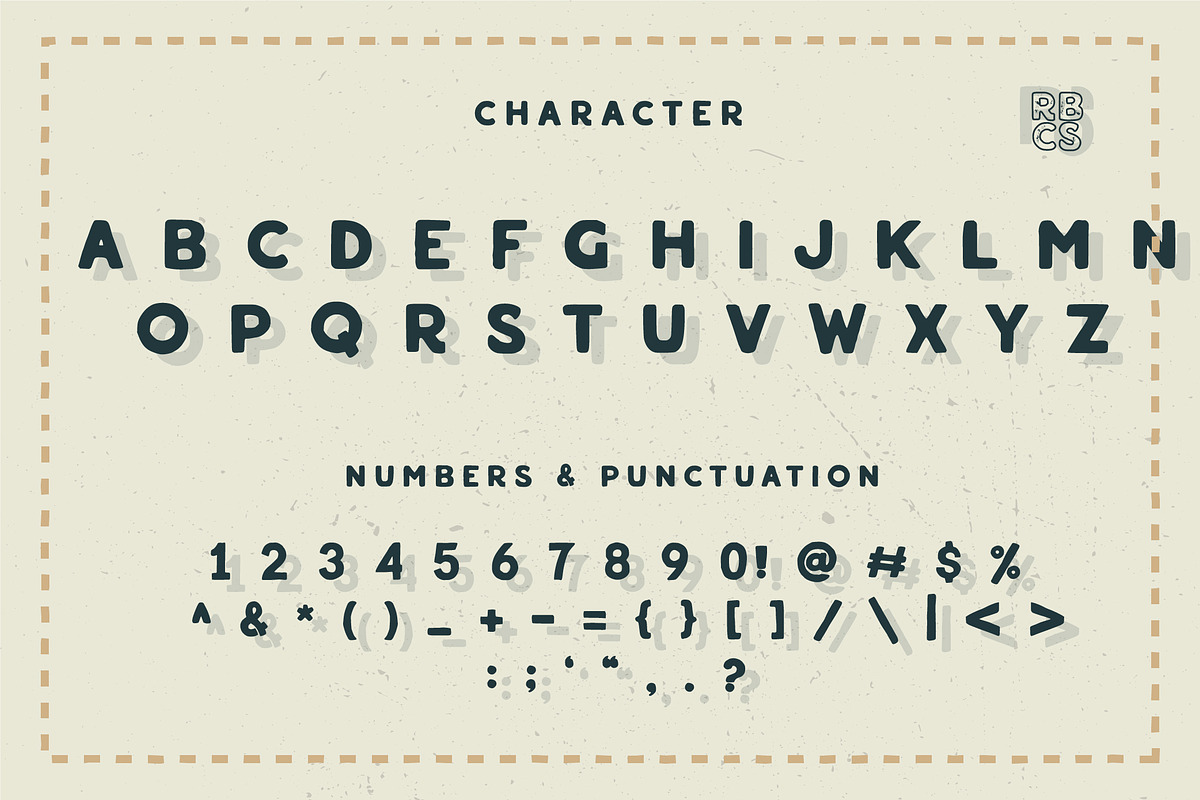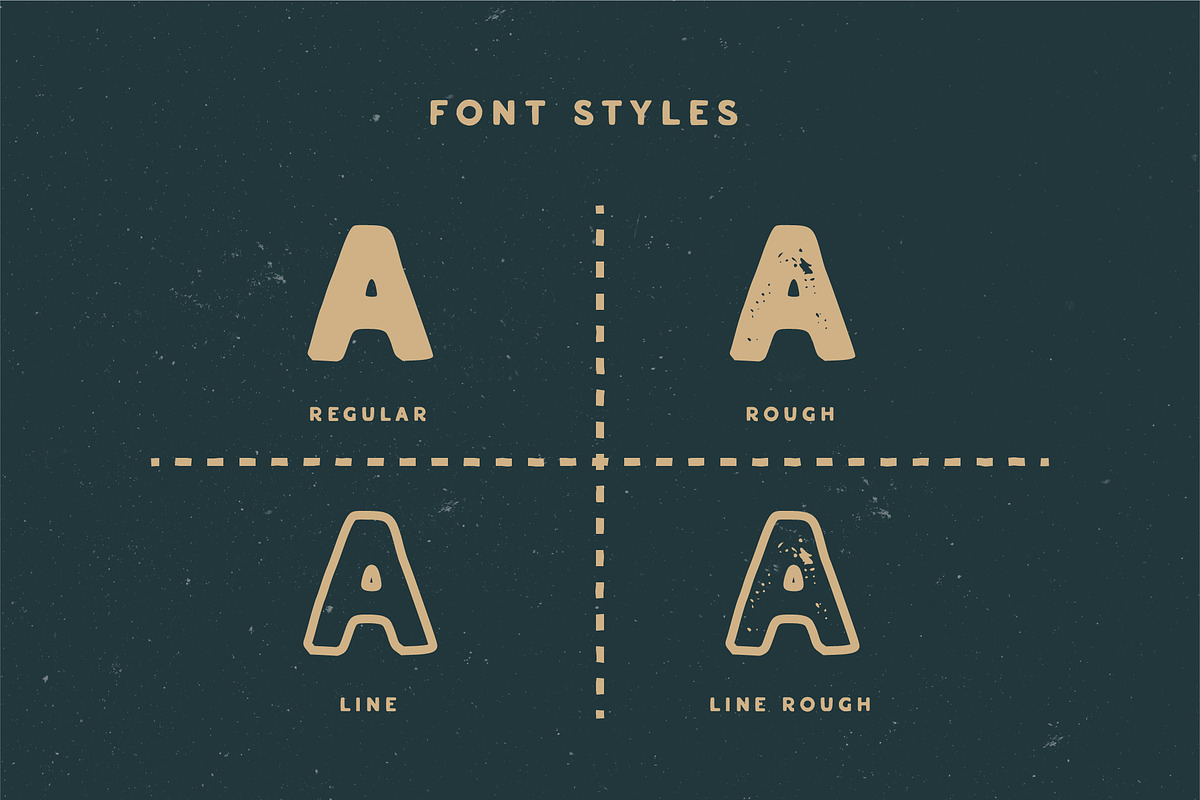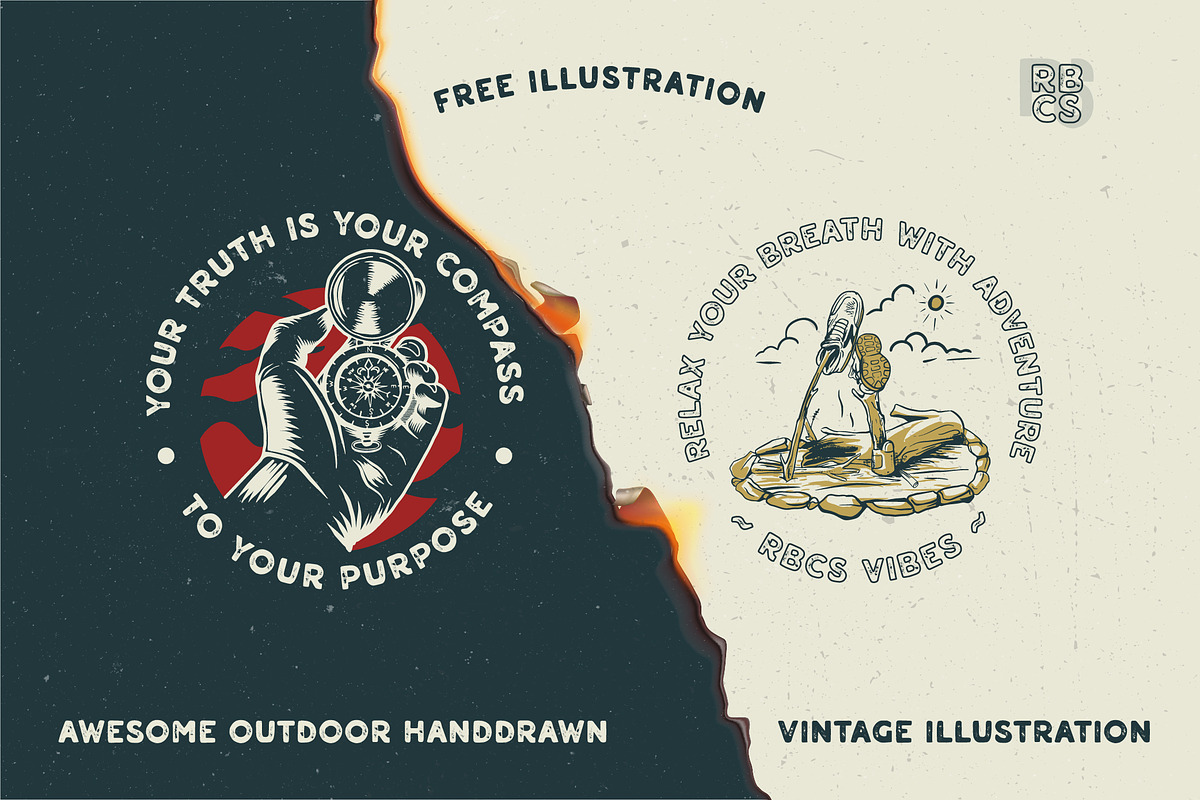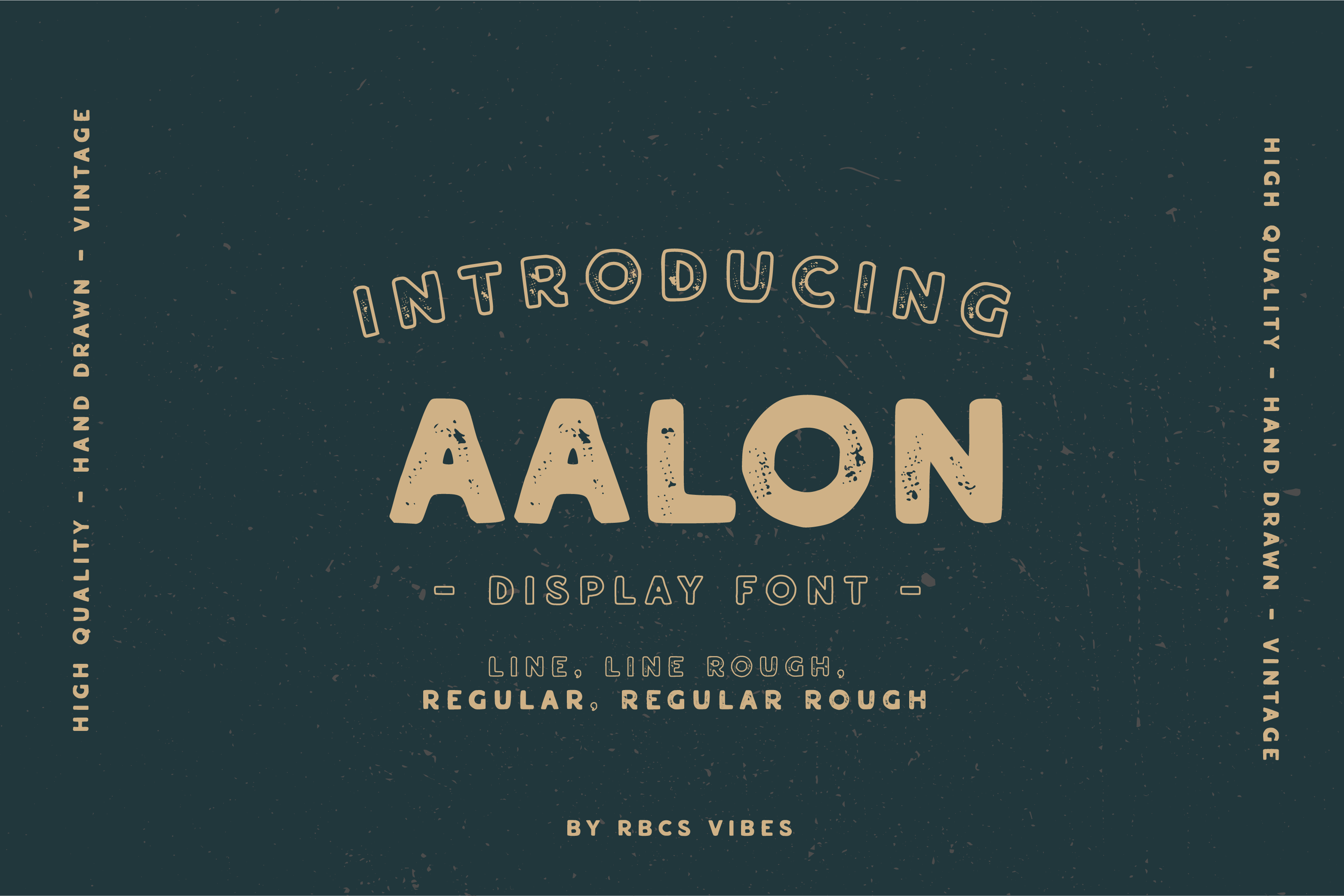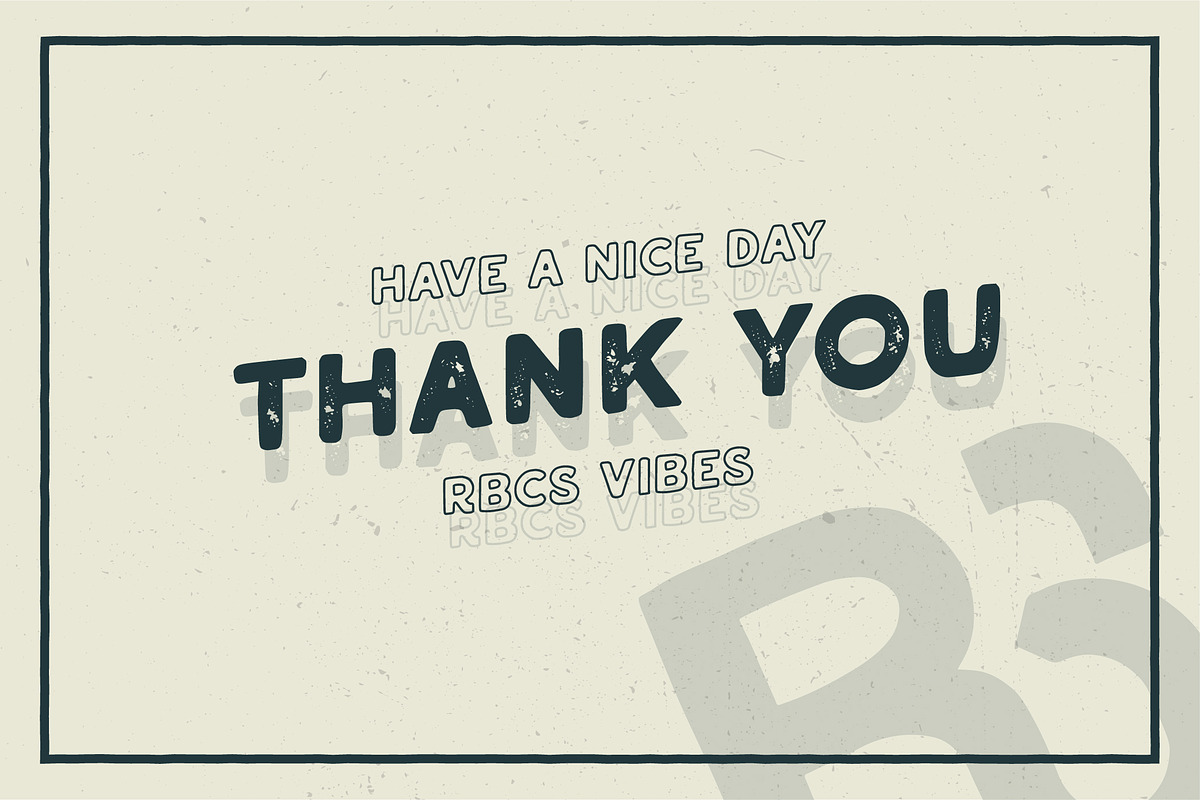
Aalon Vintage Font
Aalon is a display font that has a rough and vintage texture, This font comes in several styles and works across the board for truly unique and hip designs.